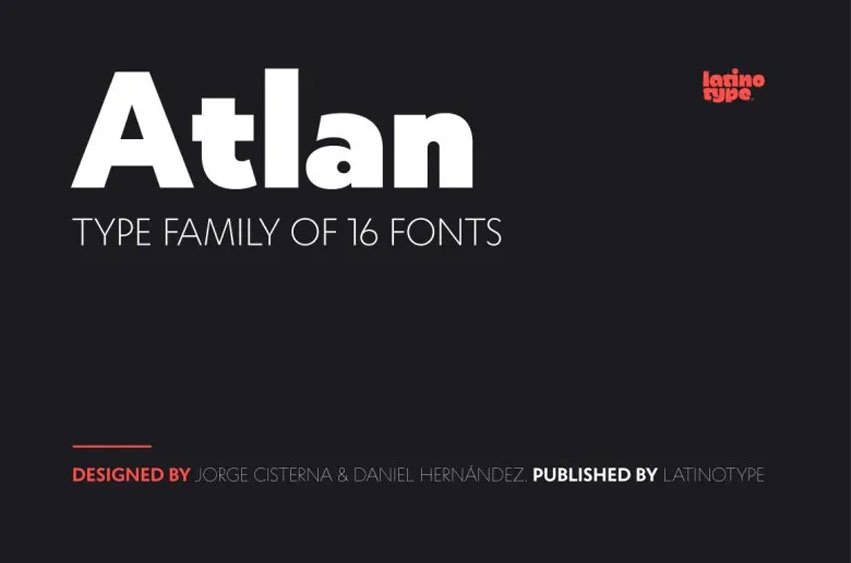
Atlan Font is a Latin “spin-off” of classical geometric sanstypefaces. Inspired by Rudolf Koch’s Kabel typeface while considering modern design trends, Atlan was created – creating an appealing font based on highly expressive geometric sansserif fonts from 1920s.
As part of our design challenge, we undertook to reinterpret these features without losing their expressiveness to produce an effective and versatile design. This resulted in an e-type font with display characteristics suitable for lightweight text that uses uniform color palette.
This family provides an assortment of styles, ranging from the elegant Thin weight designed for corporate and publishing websites, to its heavier variant (perfect for packaging or logotypes) which emphasizes all of its stylistic attributes.